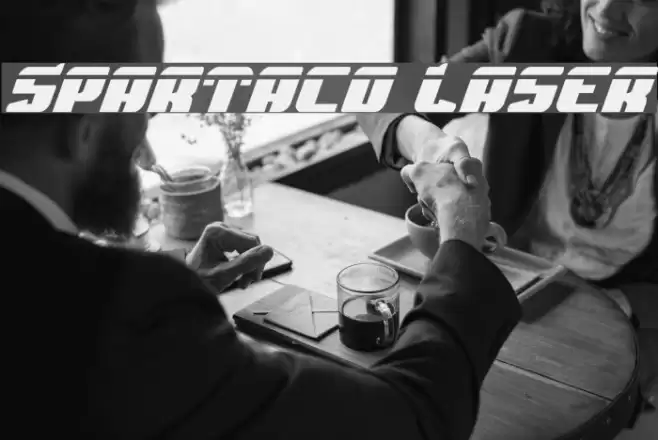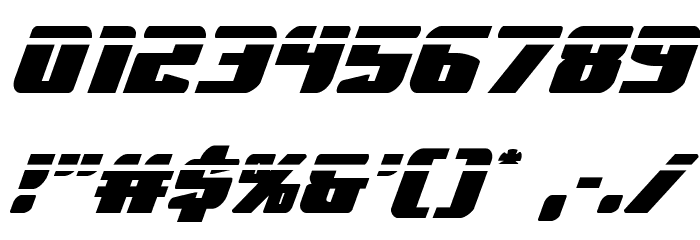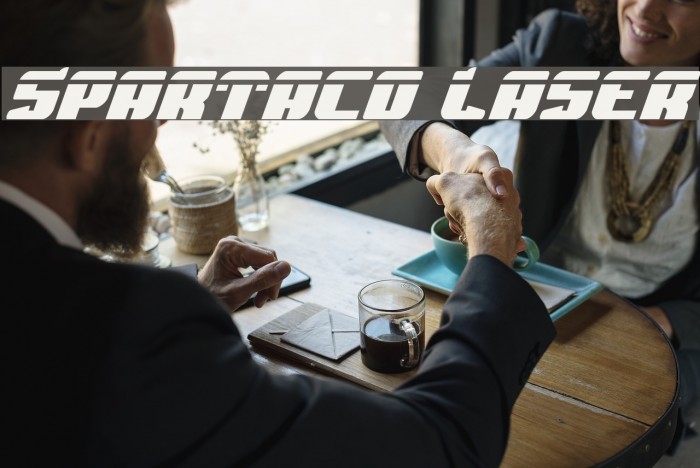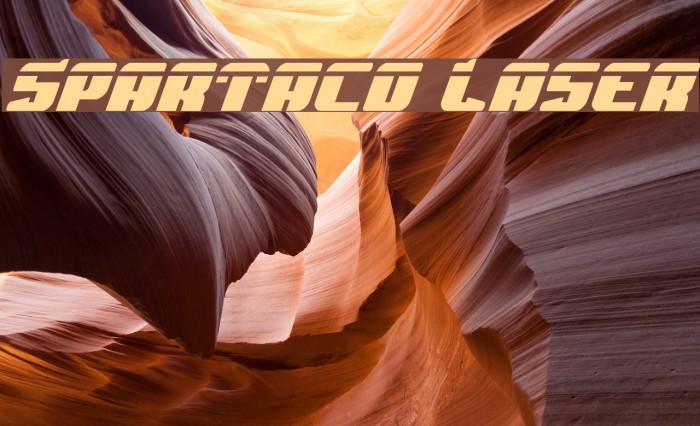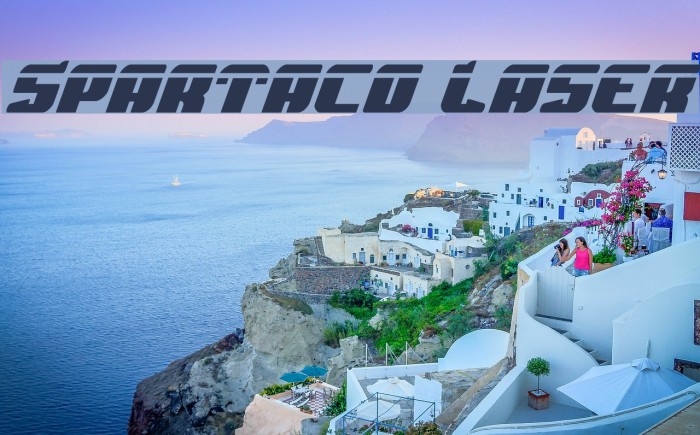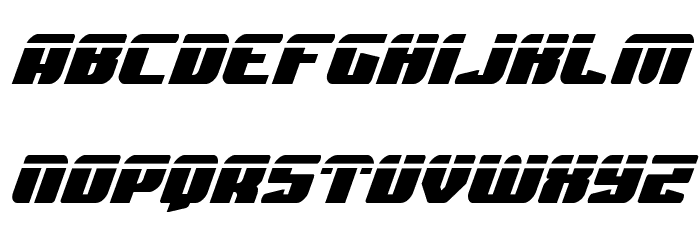
Spartaco Laser Font
Spartaco Laser Description
This font features a bold, futuristic design with a strong geometric influence. The characters are sharply angled, giving them a dynamic and energetic appearance. The strokes are thick and consistent, creating a sense of power and stability. The overall look is modern and sleek, with a slight slant that adds to its forward-moving feel. The font is highly legible, making it suitable for impactful headlines and attention-grabbing designs. Its unique style is reminiscent of sci-fi themes and digital aesthetics, making it ideal for projects that require a modern and cutting-edge look.
A bold, futuristic font with geometric angles and a modern, dynamic style from Sci-fi fonts.
- Proposed Projects: Ideal for sci-fi themed designs, technology branding, video game titles, and futuristic posters.